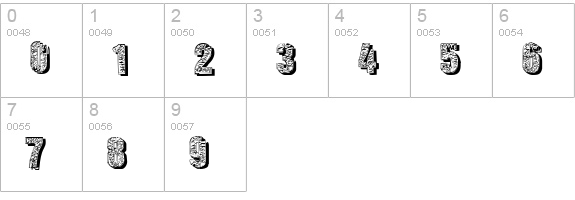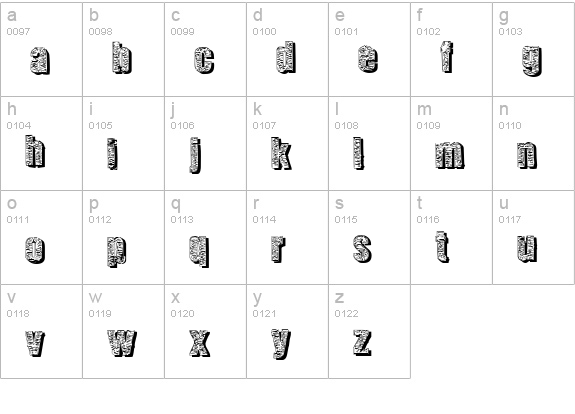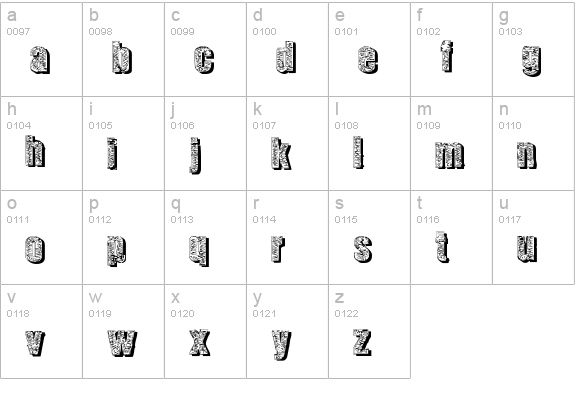
Corporate Suit Shadow Font Details
Introducing Corporate Suit Shadow font, a sleek and sophisticated typeface perfect for corporate branding and professional design projects. This font exudes a sense of elegance and modernity, making it ideal for creating a polished and professional look. The striking shadow effect adds depth and dimension to your text, making it stand out in any design. What's even better is that Corporate Suit Shadow font is available for free download at FontsMarket.com. Yes, you read that right - this high-quality font is completely free to use for both personal and commercial projects. So go ahead, elevate your designs with Corporate Suit Shadow font and make a lasting impression with its refined style and distinctive flair. Download it now and add a touch of sophistication to your typographic creations.